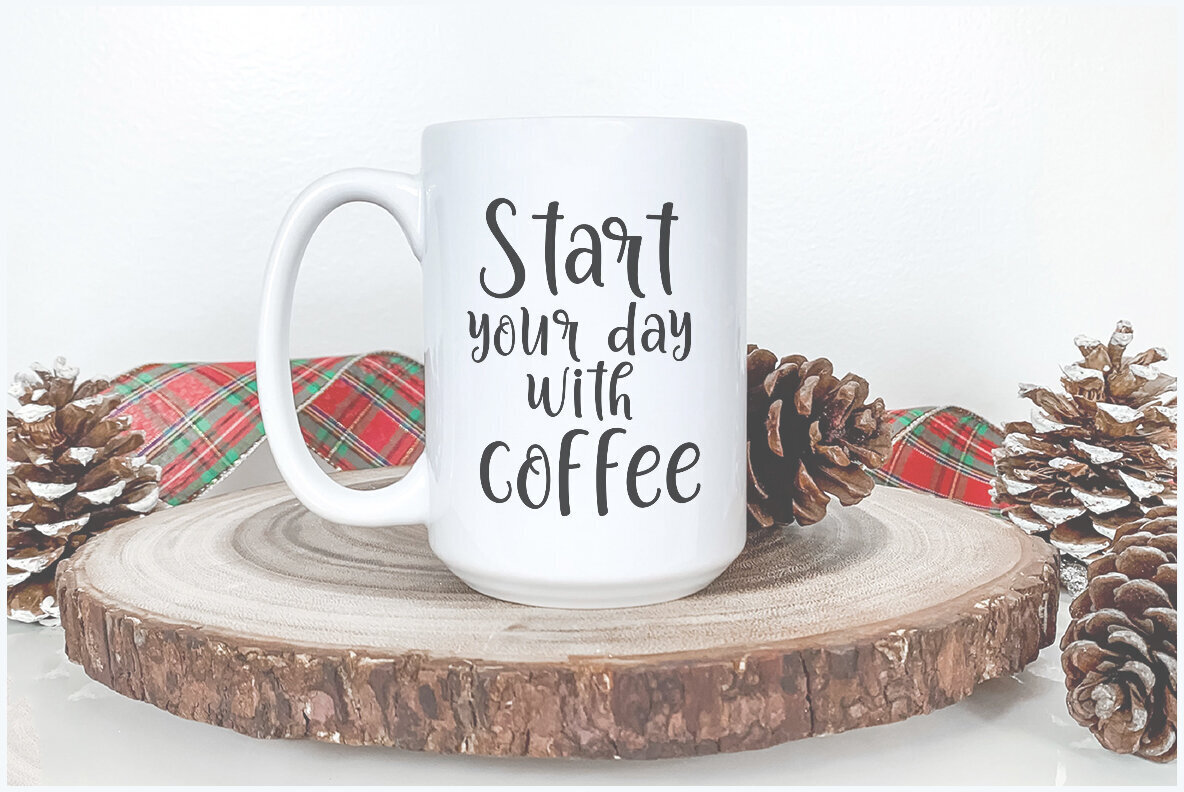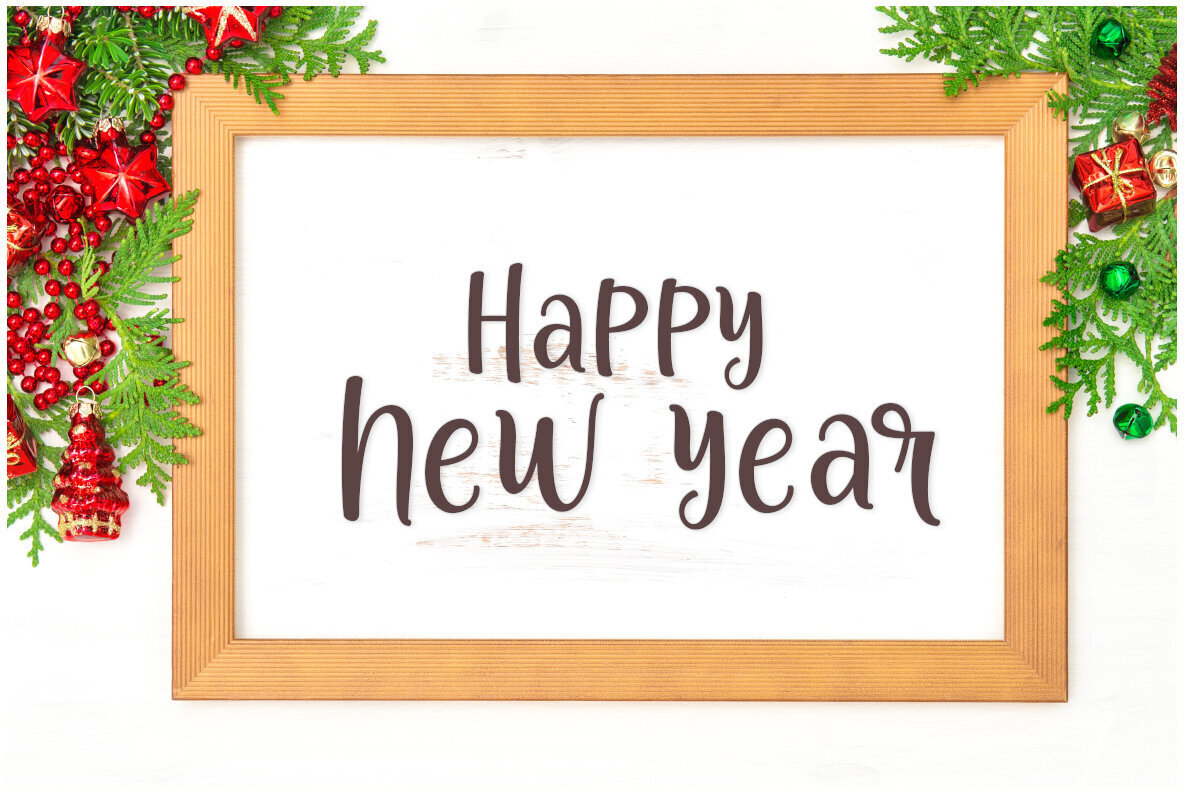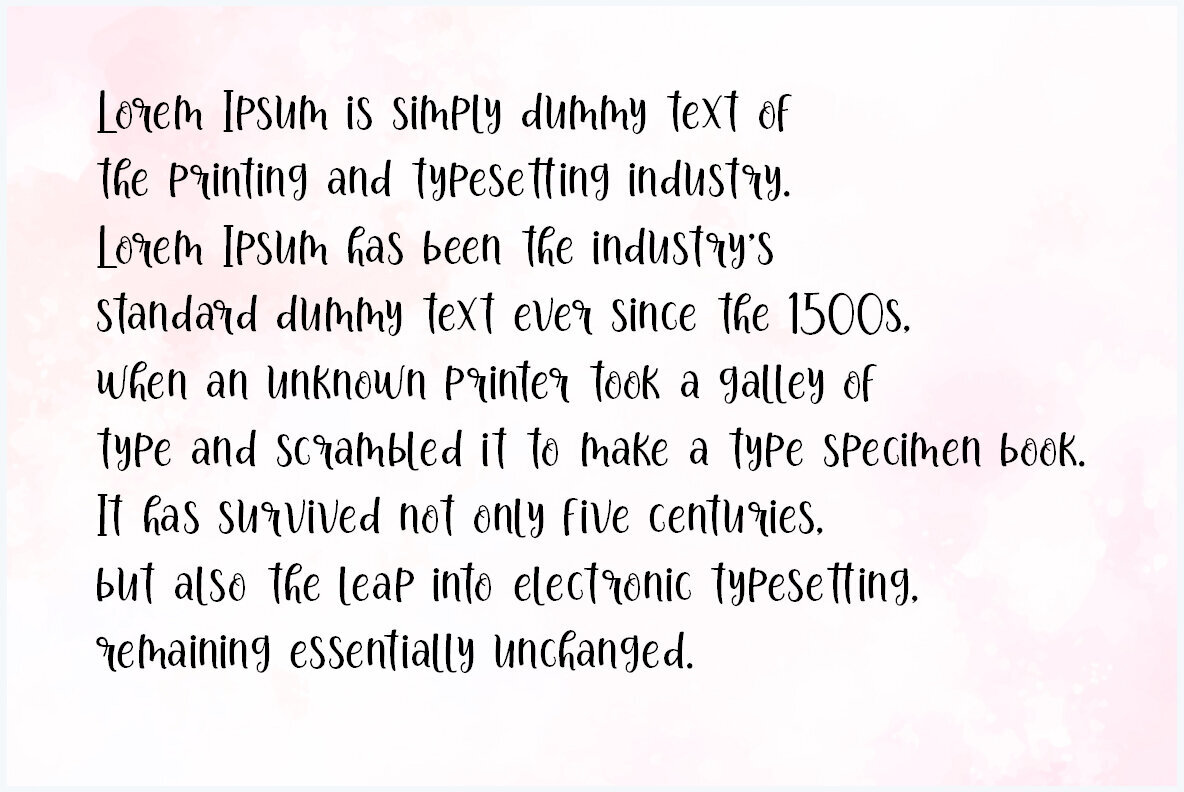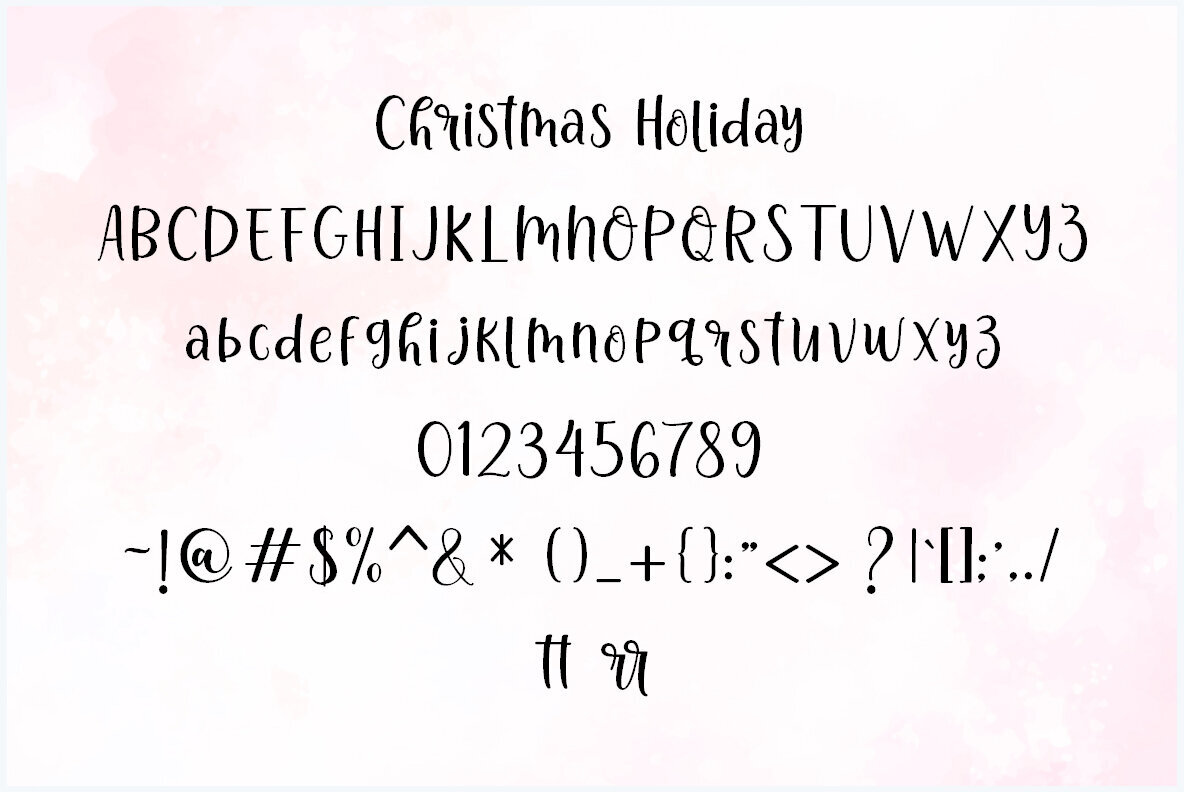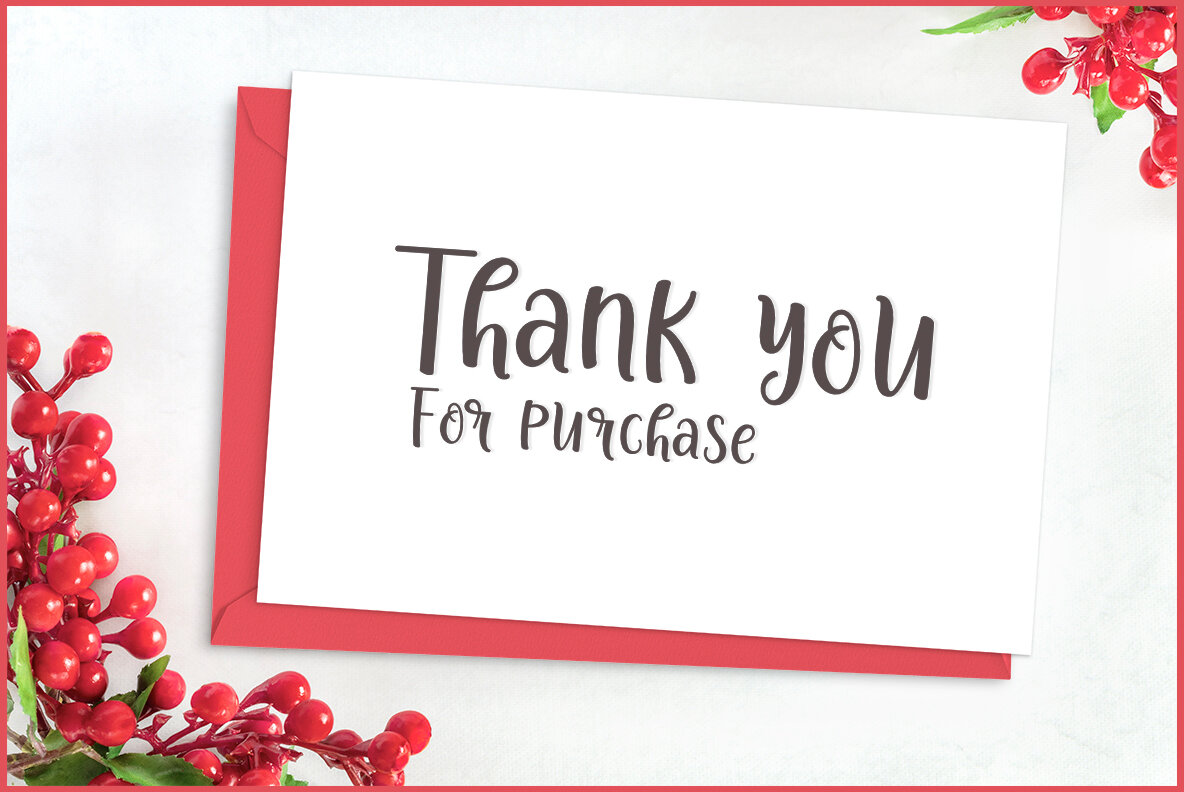
Christmas Holiday Font
Christmas Holiday
Christmas Holiday is the perfect addition to your creative toolkit, offering a delightful script aesthetic ideal for the upcoming festive season. This font adds a touch of warmth and charm to a wide array of design projects, including invitations, greeting cards, posters, quotes, and business cards. Its versatile elegance also makes it suitable for T-shirts and branding initiatives.Christmas Holiday: A Festive Script for Seasonal Designs